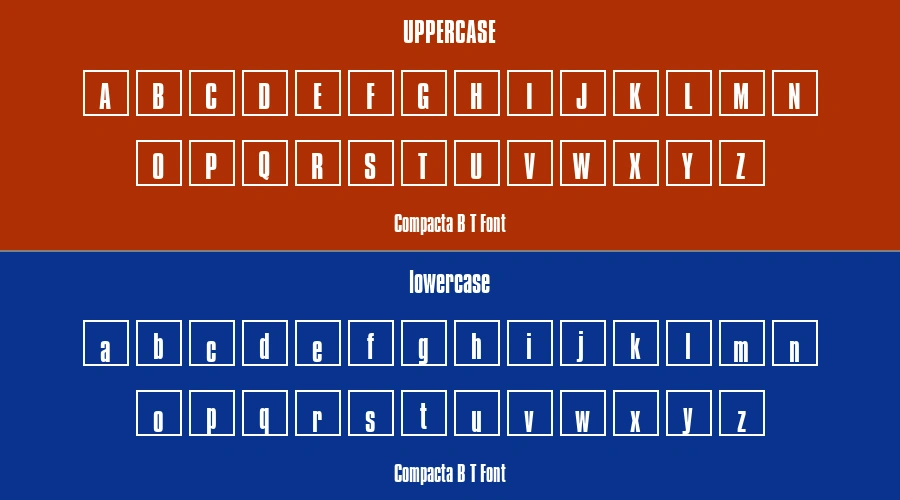
About Compacta B T Font
Designed with precision, Compacta B T Font merges fluid connections with precision in every character. This versatility makes it particularly effective for government publications, where memorability and cultural significance directly impact communication quality. Each letterform demonstrates meticulous craftsmanship.
Technical excellence shines through elements like clean lines and stylistic sets, enhancing typographic versatility. In logos settings, Compacta B T Font proves its worth through superior memory recall. The thoughtful execution of corner treatment and cultural resonance ensures professional results.